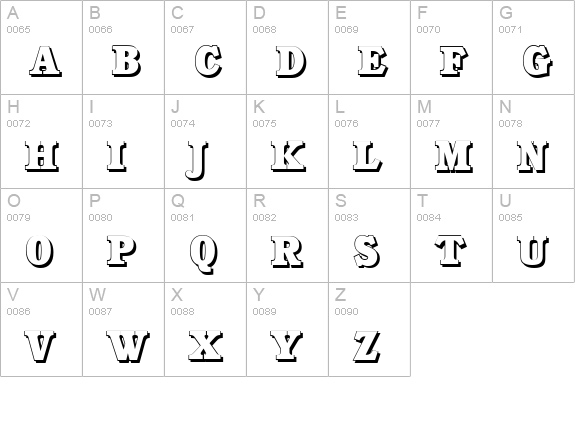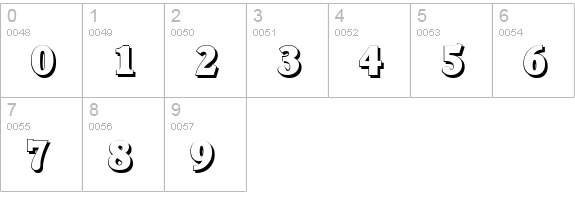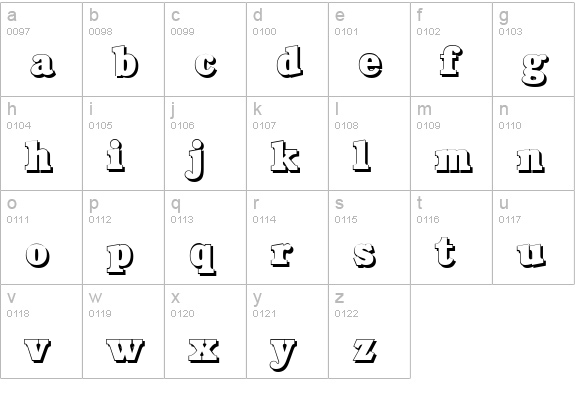
CalgaryShadow-Heavy-Regular Font Details
CalgaryShadow-Heavy-Regular is a heavy, high-impact variant in the CalgaryShadow typeface family \xE2\x80\x94 well suited to high-impact headlines, posters, and display advertising.
CalgaryShadow-Heavy-Regular font is a bold and striking typeface that exudes a sense of strength and power. Its shadow effect adds depth and dimension to each character, making it perfect for creating eye-catching headlines and titles. This versatile font is ideal for various design projects, from posters and banners to logos and branding materials. The best part is that CalgaryShadow-Heavy-Regular font is available for free download at FontsMarket.com. This means you can easily access this high-quality font to enhance your designs without any cost. Don't miss out on the opportunity to add CalgaryShadow-Heavy-Regular font to your font collection today!